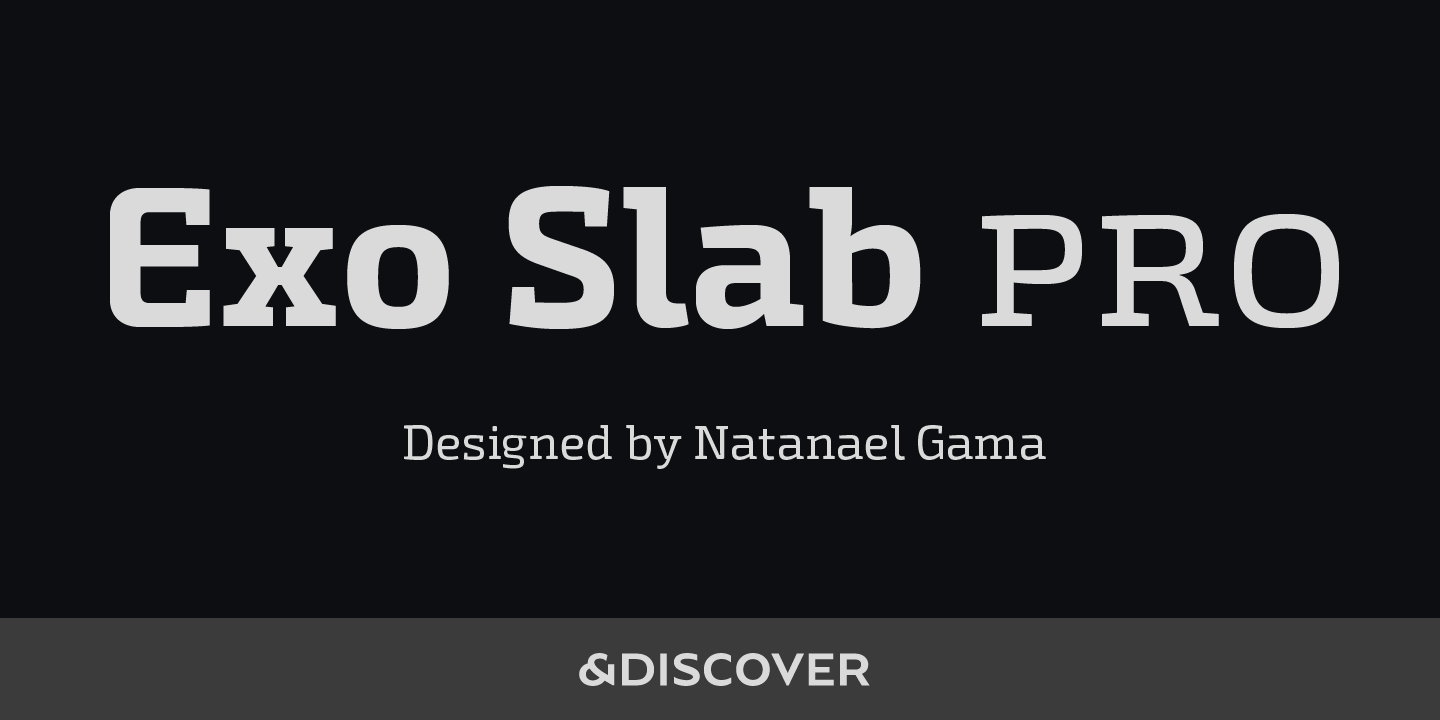
This contemporary typeface is an outstanding choice for projects that demand a strong, geometric presence combined with excellent readability and a modern, technical aesthetic. Imagine it forming the core of innovative tech company branding, providing crisp clarity for digital interfaces, or giving a robust voice to editorial layouts in design and engineering publications. Exo Slab Pro Font is also perfectly suited for designing impactful logos, crafting precise informational graphics, or creating bold headlines for marketing campaigns that need to convey innovation and reliability. Its sturdy serifs and structured forms make it an ideal option for any design seeking to communicate professionalism, technological advancement, and a forward-thinking vision, such as architectural firm websites, industrial product packaging, or scientific research presentations.
What makes Exo Slab Pro Font so exciting? It strikes a powerful balance between the solidity of a slab serif and the refined geometry of a modern sans-serif. The clear, well-defined letterforms ensure exceptional legibility across various sizes and applications, from intricate data visualizations to prominent display text. This font doesn’t just present information; it grounds it with an inherent sense of stability and intellectual rigor. It’s engineered to perform exceptionally well in both print and digital environments, ensuring your message is always delivered with authority and precision. The inherent strength and contemporary feel of its character shapes make it particularly effective for brands that champion innovation, structural integrity, and a clean, sophisticated identity.
The Exo Slab Pro Font family typically offers a comprehensive range of weights and styles, providing extensive flexibility for designers to build complex and harmonious typographic systems. You can expect to find a broad spectrum of options, including Thin, Light, Regular, Medium, Bold, and perhaps even an Extra Bold or Black weight, along with corresponding italic versions. Each weight is meticulously designed to maintain the font's core characteristics while offering distinct visual impacts, allowing for nuanced typographic hierarchies. These variations enable designers to create sophisticated and highly functional text layouts, effectively differentiating between headlines, subheadings, and body text with ease and visual coherence. The extensive family ensures that Exo Slab Pro Font can be the singular typeface for an entire brand system, guaranteeing visual consistency and a polished, professional appearance across all mediums.
Whether you're developing a cutting-edge software interface, building a new corporate identity for an engineering firm, or simply need a typeface that speaks with authority and modern elegance, Exo Slab Pro Font Free Download is an exceptional choice. Its robust design and broad versatility will ensure your message is always delivered with utmost clarity and impactful precision.